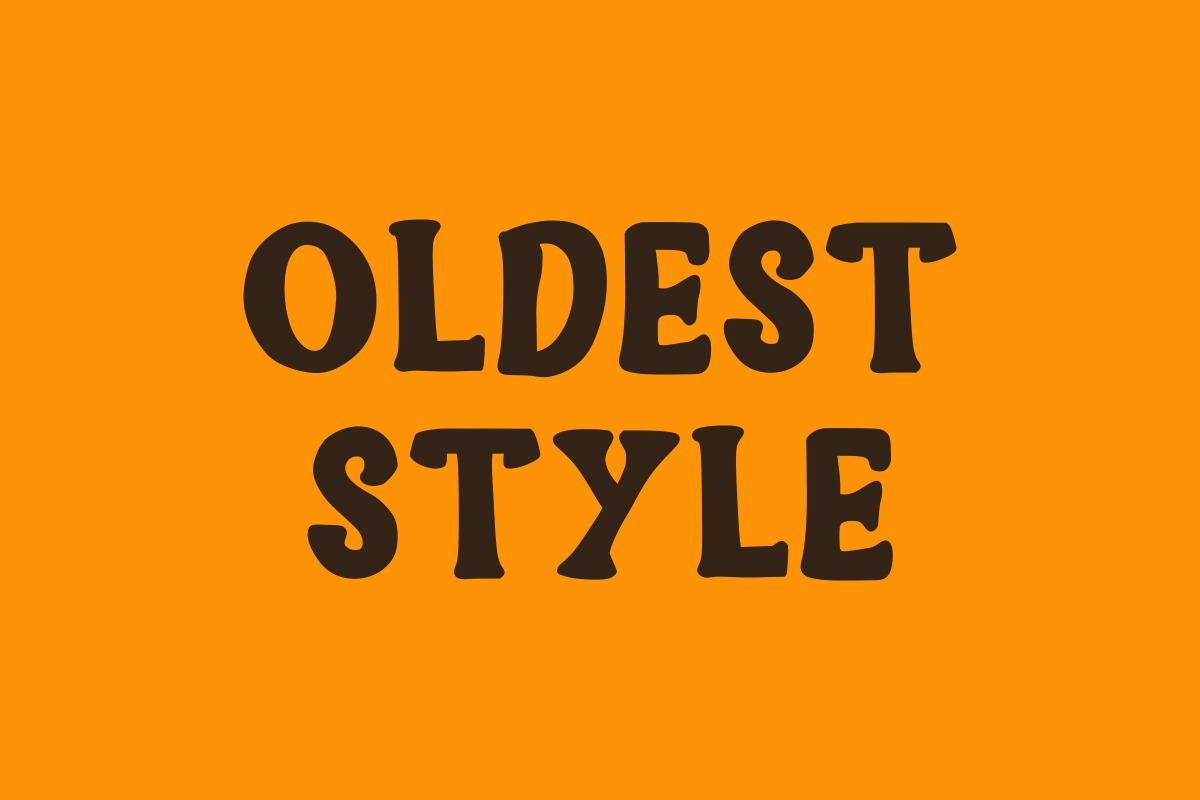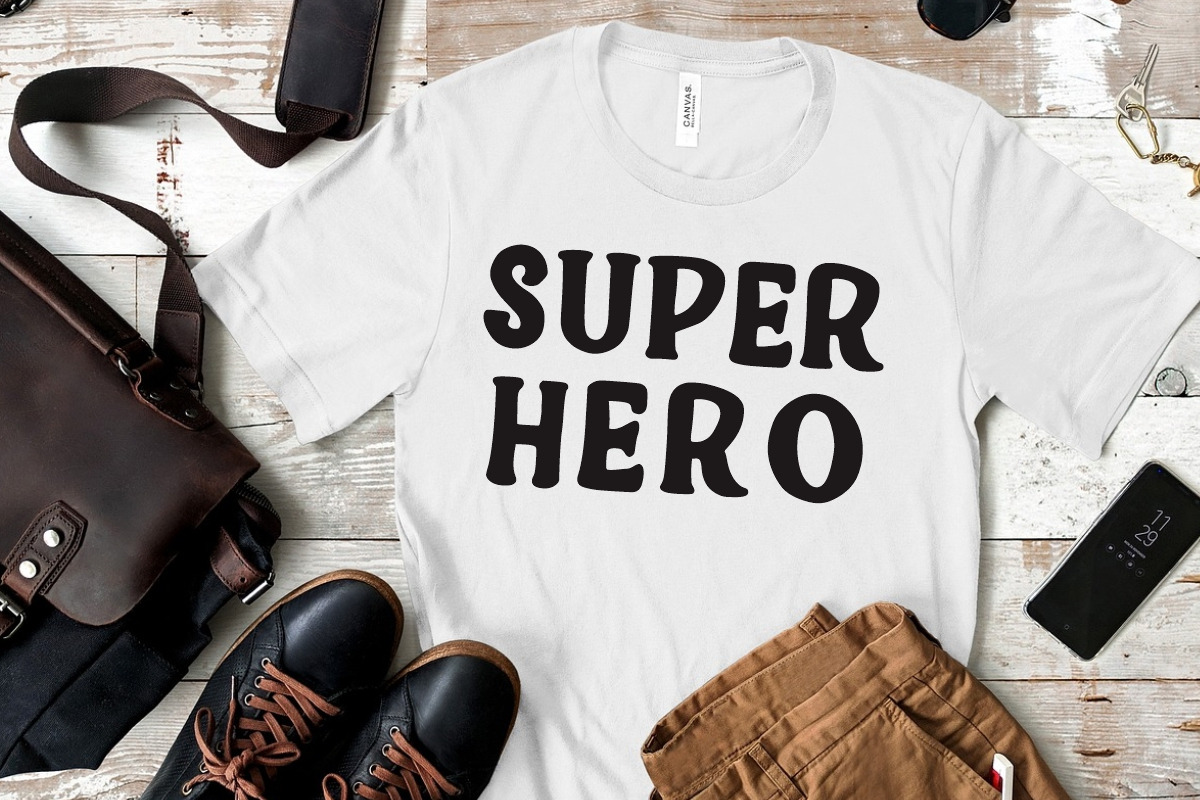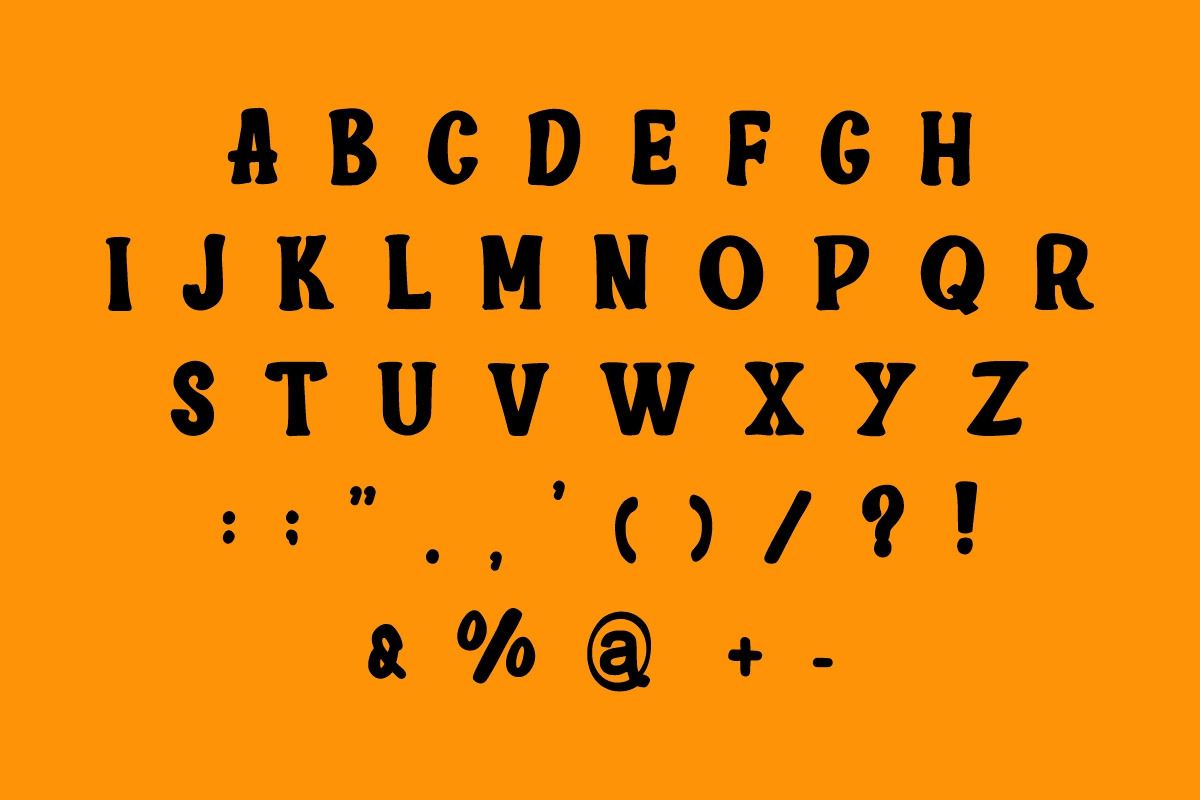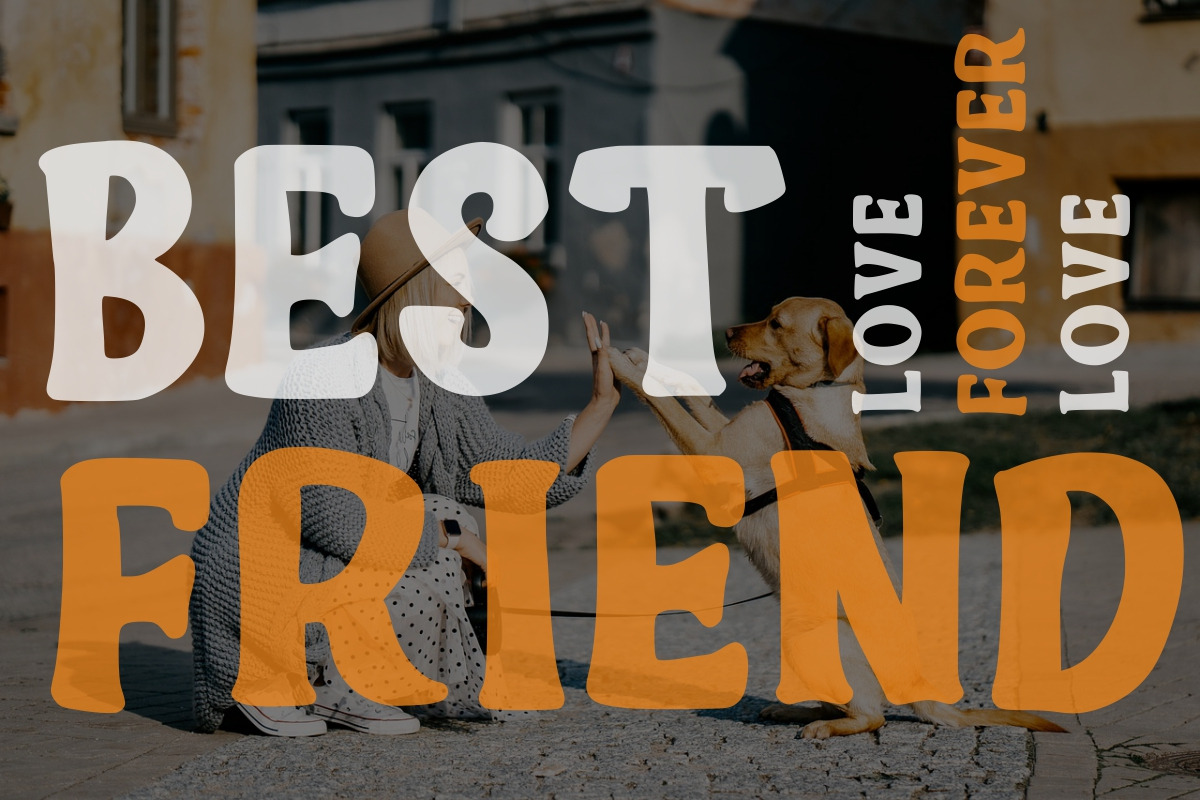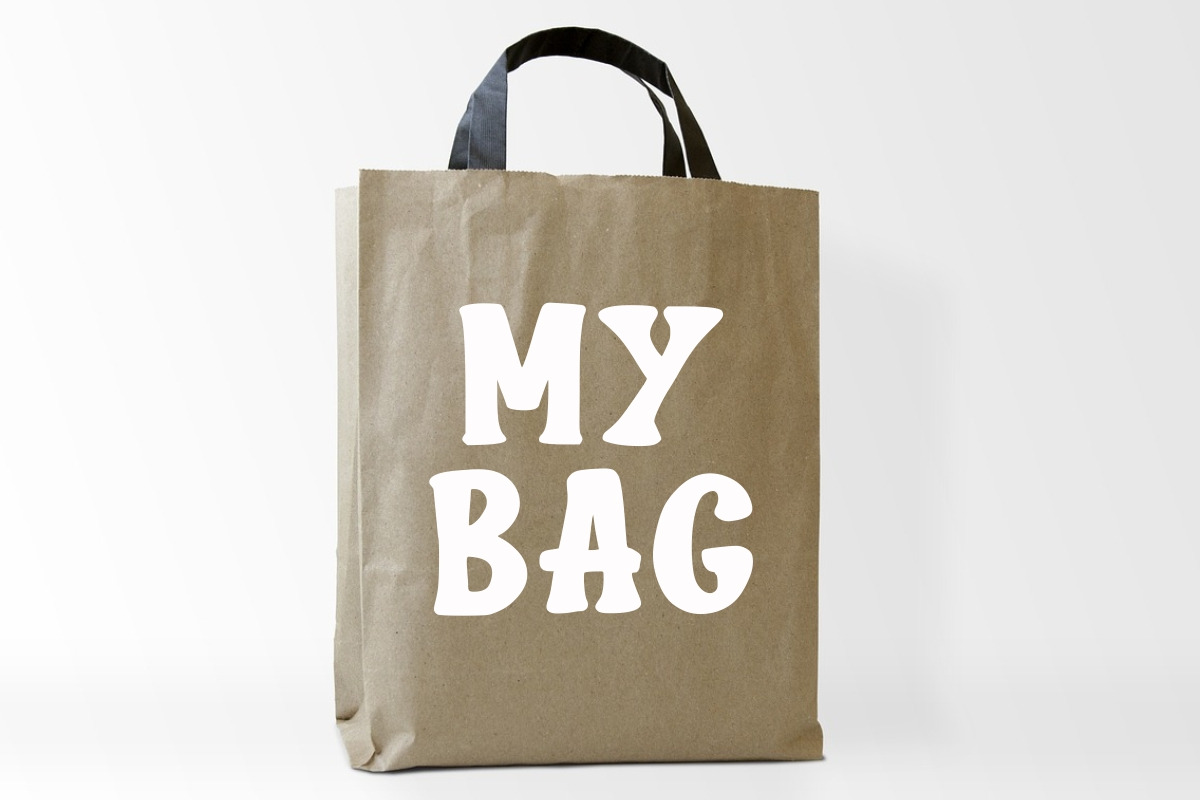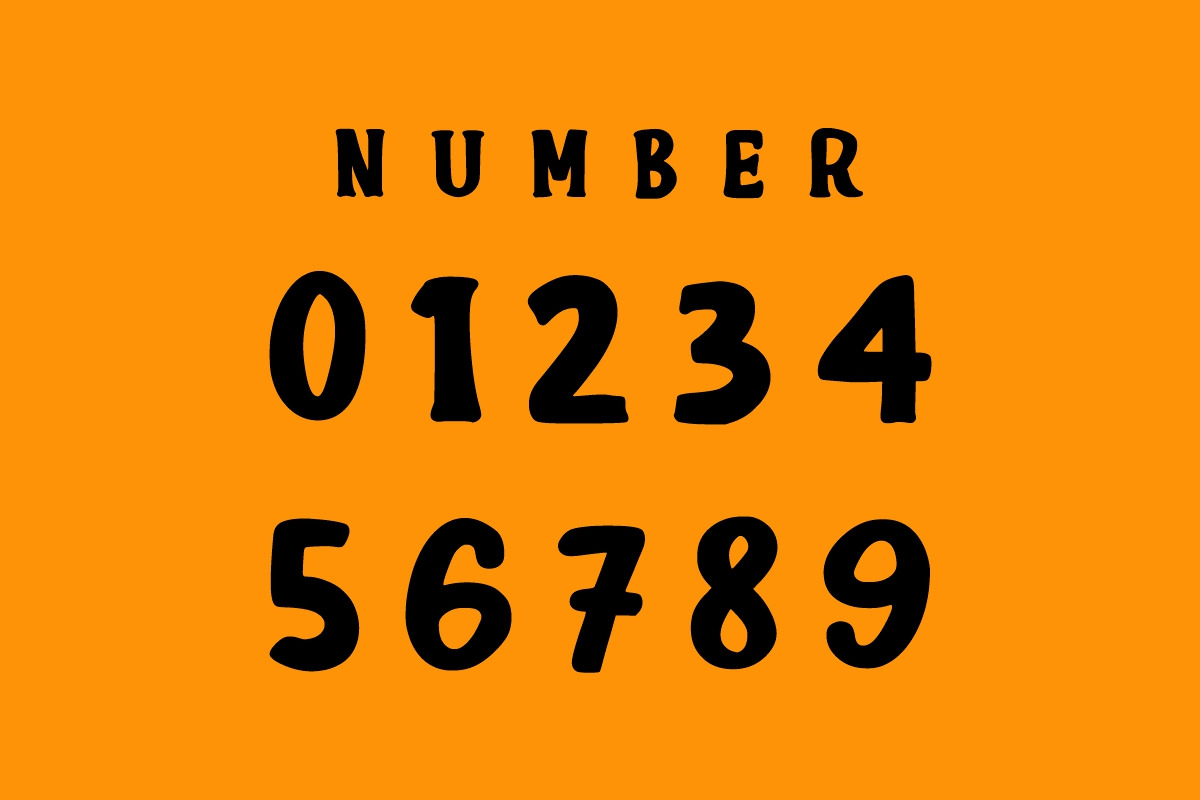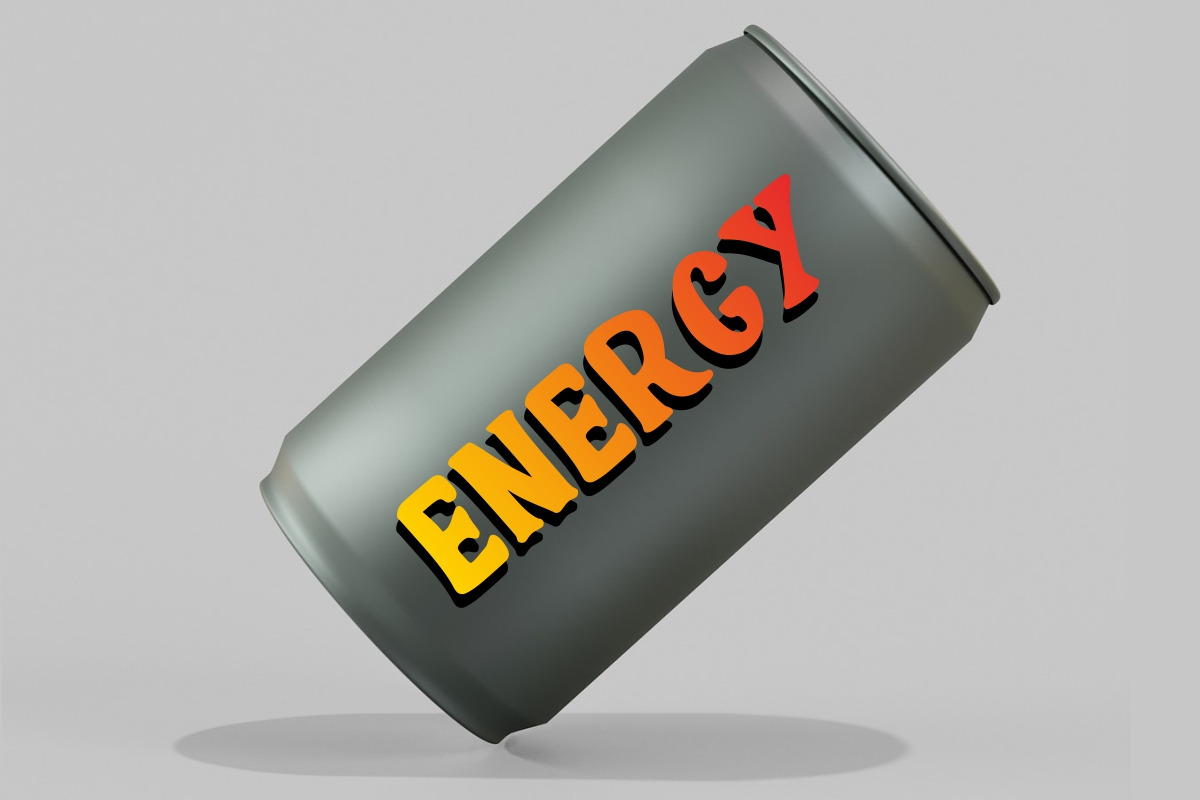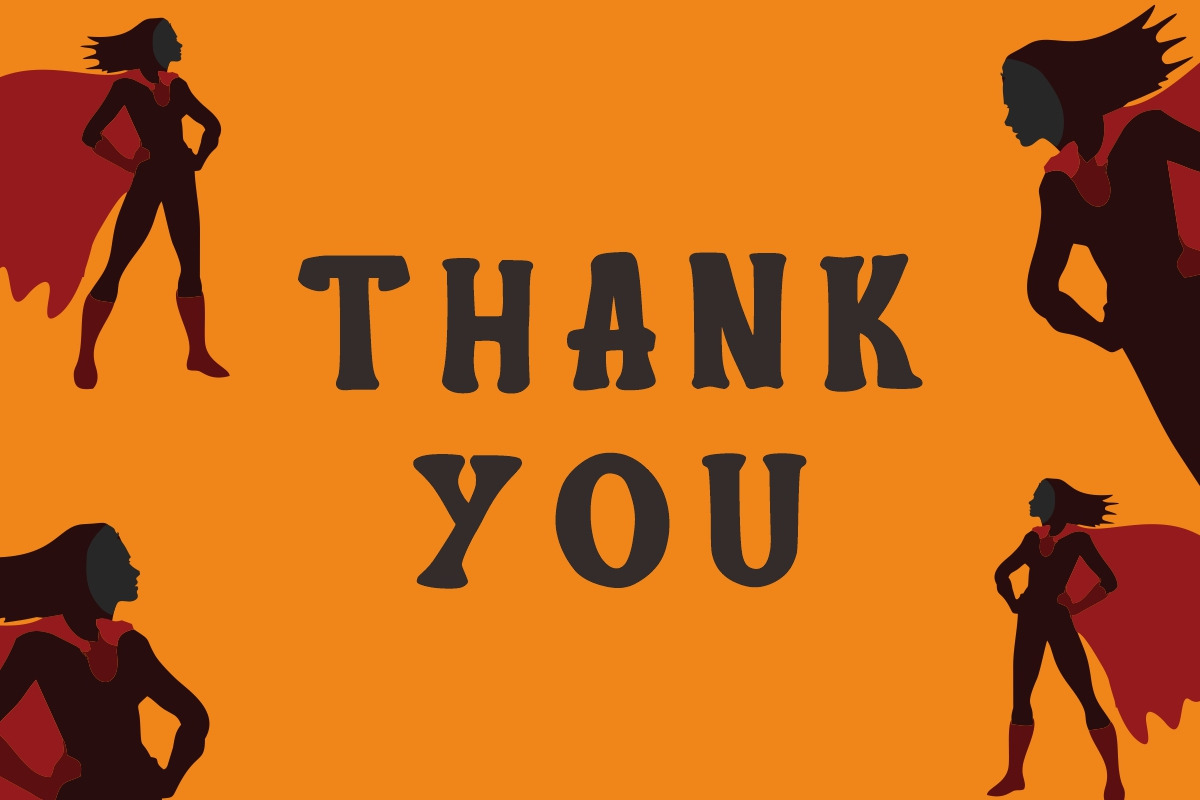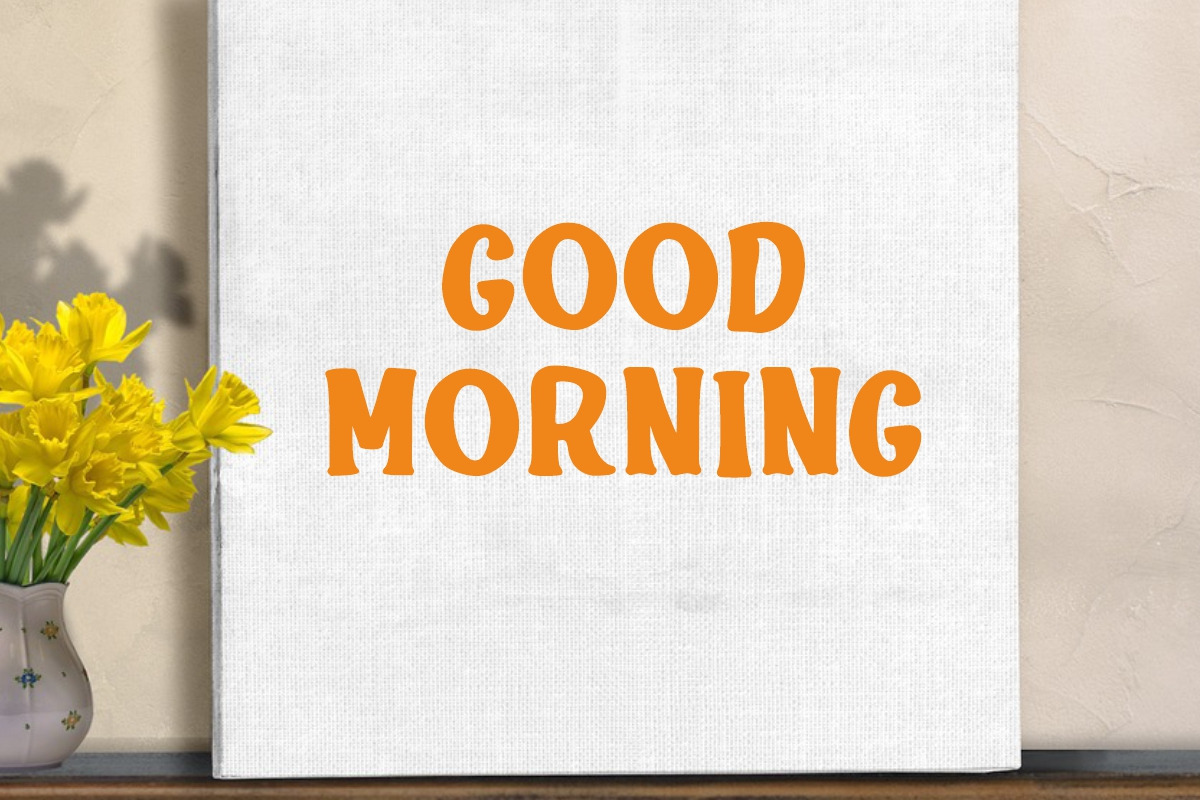
Mom Hero
Mom Hero is a Classic vintage font, outline bold display font. It is suitable for any winter and holiday branding project, product packaging, invitation, quote, t-shirt, label, poster, text effect, label, and logo that you wish to develop.